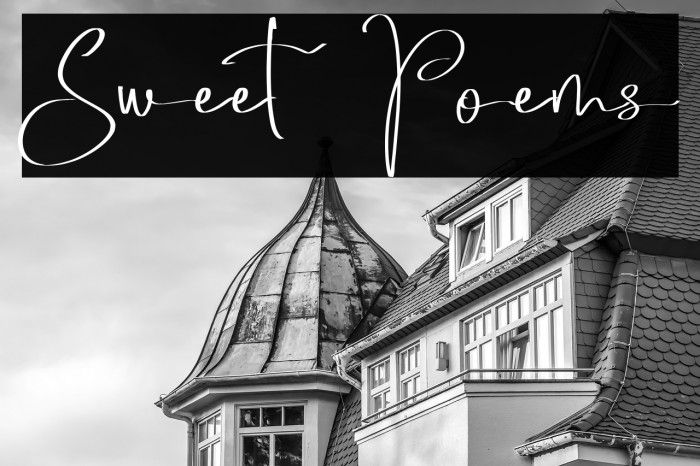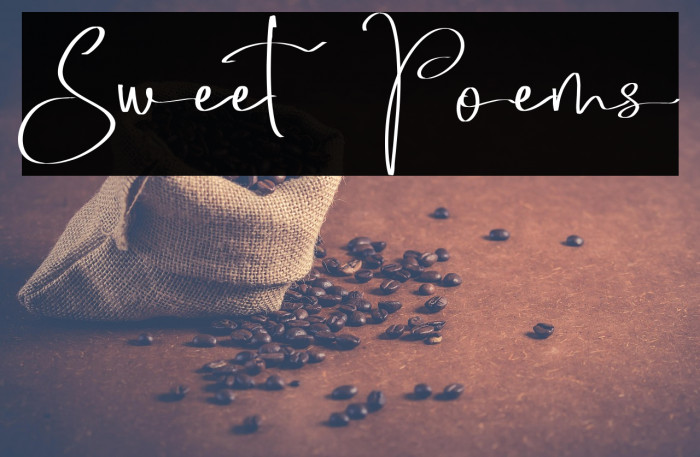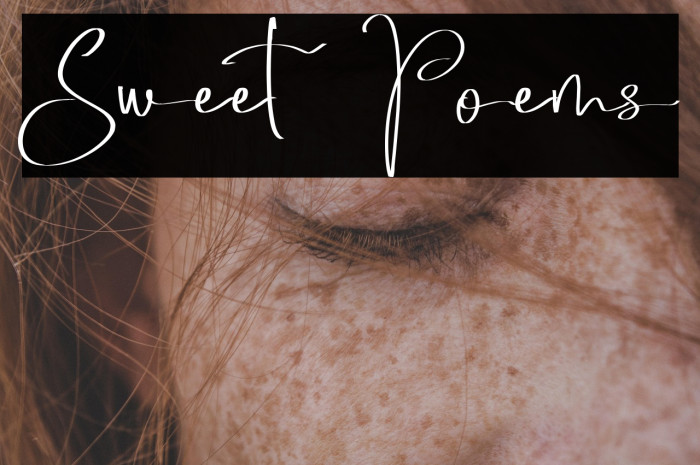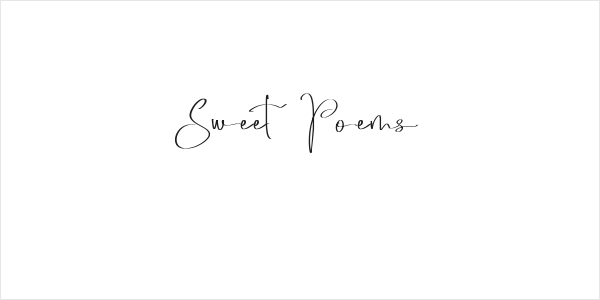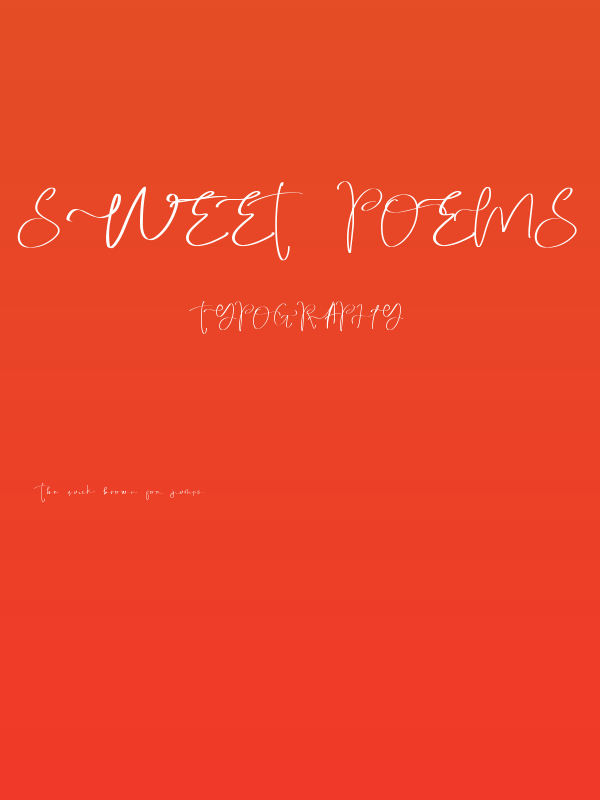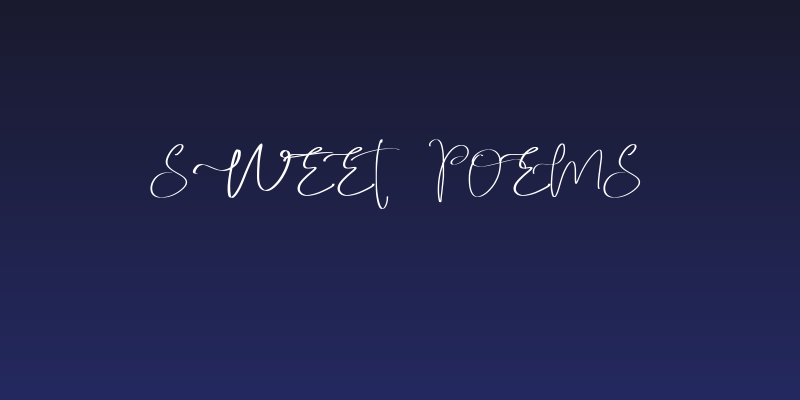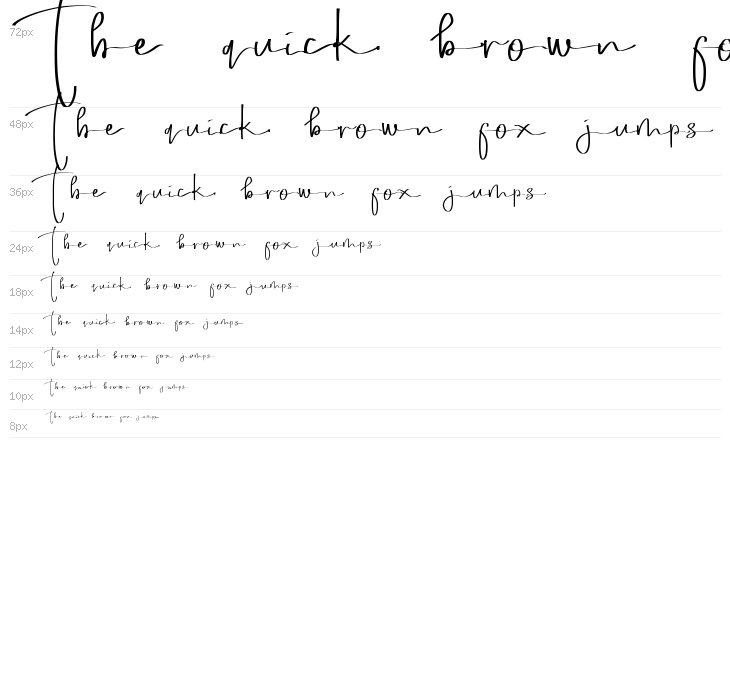
Sweet Poems Font
Sweet Poems Description
This font features an elegant, flowing script style that mimics the fluidity of handwritten calligraphy. The uppercase letters are characterized by their tall, slender forms with dramatic flourishes and loops, giving them a whimsical yet sophisticated appearance. The lowercase letters maintain a consistent baseline with occasional ascenders and descenders that add to the font's graceful aesthetic. The numerals are uniquely styled, maintaining the font's overall delicate and airy feel. Special characters are thoughtfully designed to complement the script's artistic nature, making it suitable for creative and decorative purposes.
| Use Case | Logos, Invitations, Decorative Text |
| Proposed Projects | Ideal for wedding invitations, greeting cards, branding projects, and any design requiring a touch of elegance and personal flair. |